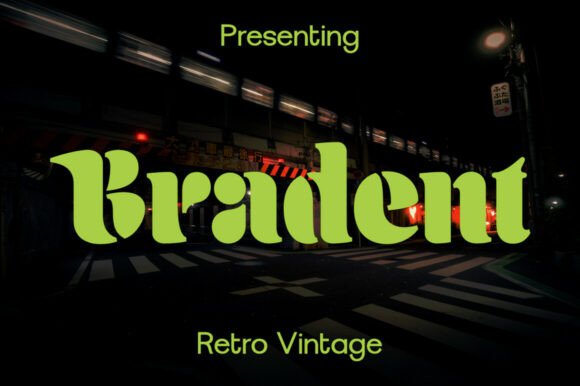
Introducing Bradent: The Ultimate Vintage Motorcycle-Themed Font Collection
I’ll never forget the design project that led me to discover the Bradent font collection. I was working on a vintage motorcycle-themed poster for a local bike shop, and I was struggling to find the perfect font to capture the essence of the classic bikes. The client wanted something that would evoke a sense of adventure, strength, and craftsmanship, but I was coming up empty-handed. That was until I stumbled upon Bradent, a dynamic font collection that combines the best of stencil-style serif and sans-serif fonts.
The Bradent Advantage
Bradent offers three unique styles to choose from—regular, rough, and stamped—each providing a distinct look that’s perfect for adding a touch of nostalgia and strength to your designs. The font collection includes detailed stencil and stamped visuals, making it easy to give your designs a classic, rustic look.
What I Love About Bradent
• ✨ Authenticity: Bradent’s stencil-style serif and sans-serif fonts are perfect for creating vintage motorcycle-themed designs that look authentic and rugged.
• âś… Versatility: With three unique styles to choose from, you can use Bradent for a wide range of design projects, from posters and logos to apparel and accessories.
While Bradent is an amazing font collection, there are a few things to keep in mind:
• ⚠️ Readability: Like many vintage fonts, Bradent’s readability can be lower than modern fonts, making it best suited for short paragraphs or headings.
• 🤔 Glyph Limitations: While Bradent includes a range of glyphs and stylistic alternates, it may not have every special character or symbol you need.
The Designer Inspiration Behind Bradent
Bradent was inspired by the classic motorcycles of the past, with their rugged, industrial design and vintage charm. The font collection is designed to evoke the sense of adventure, strength, and craftsmanship that comes with working on vintage bikes.
Author gianstudio12
Q: Is Bradent suitable for long paragraphs of text?
A: While Bradent is a beautiful font, it’s best suited for short paragraphs or headings due to its vintage style and lower readability.